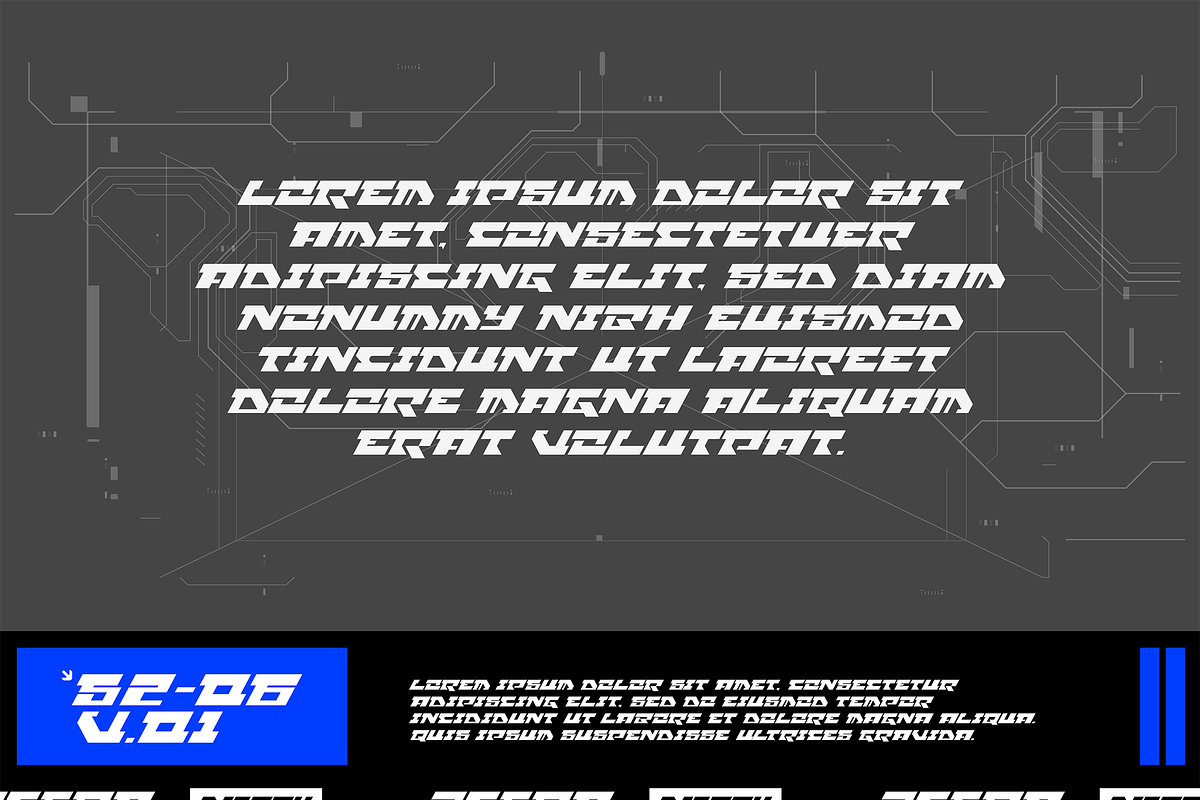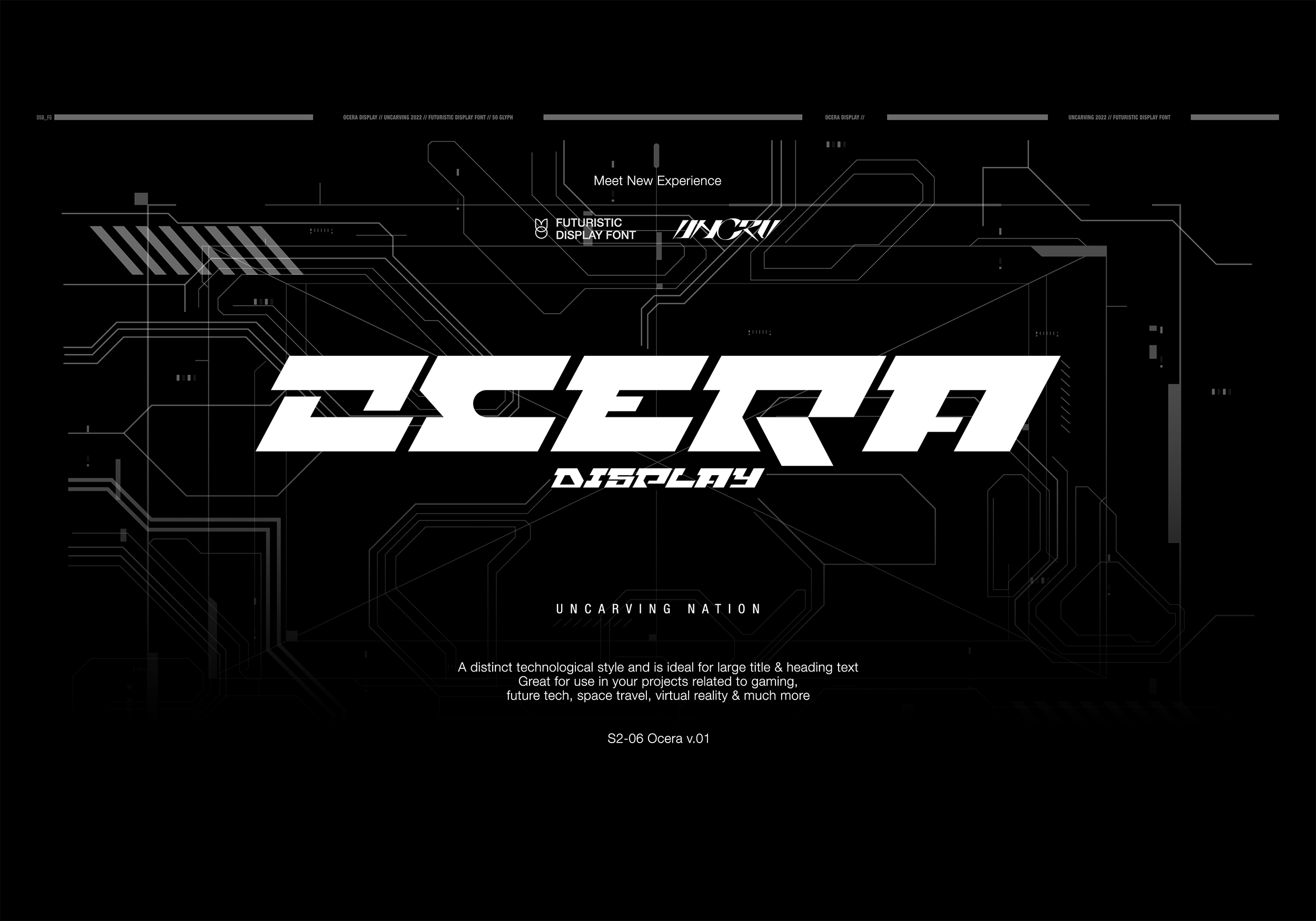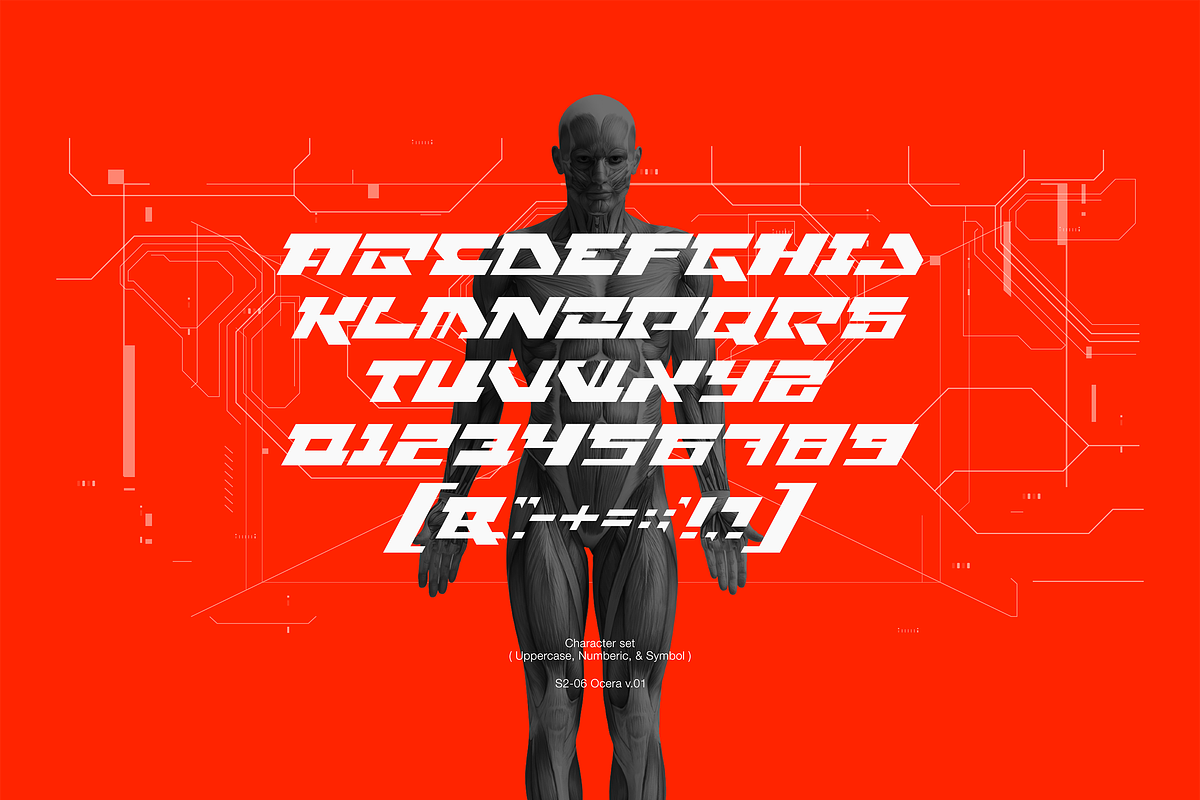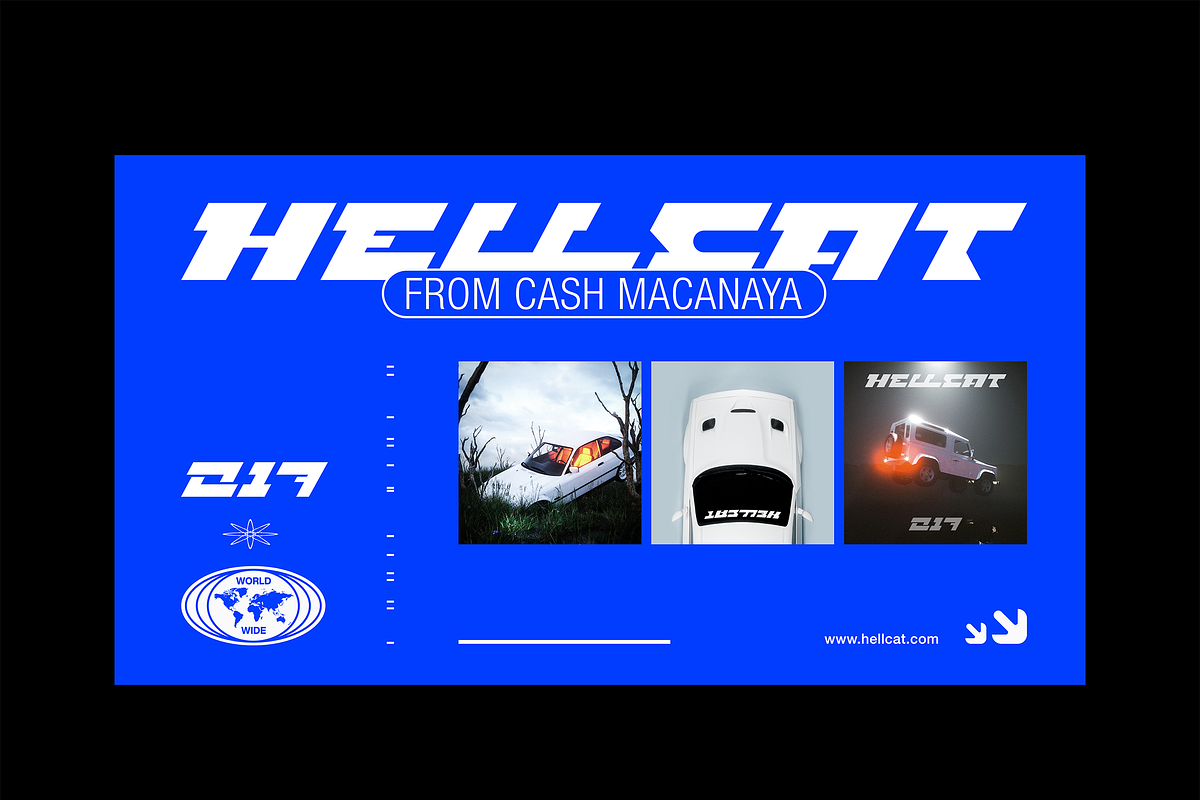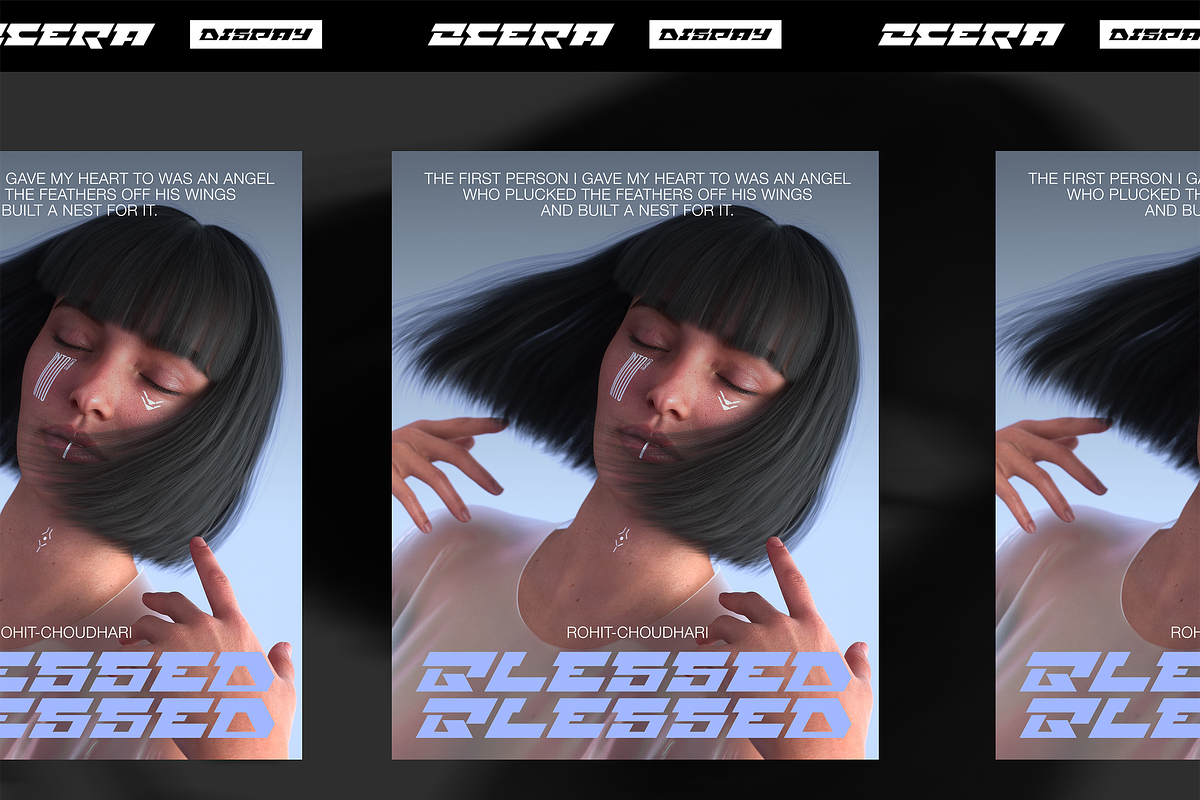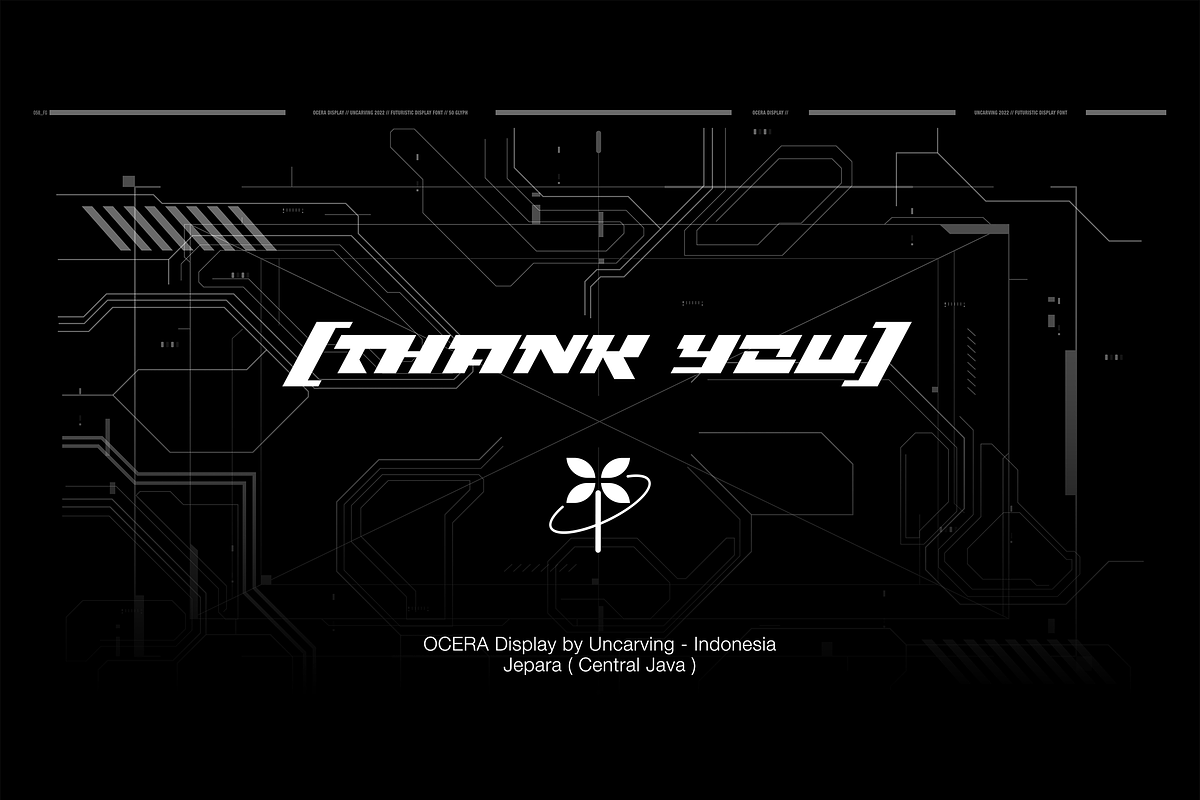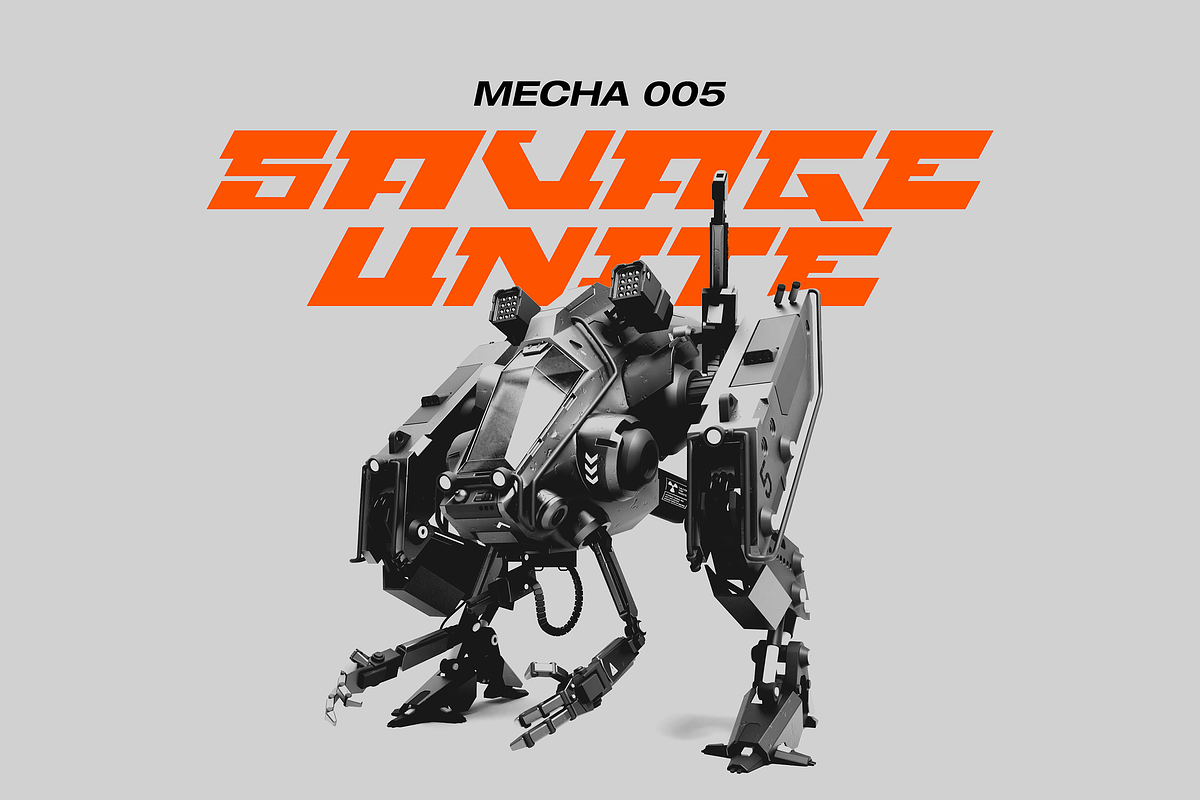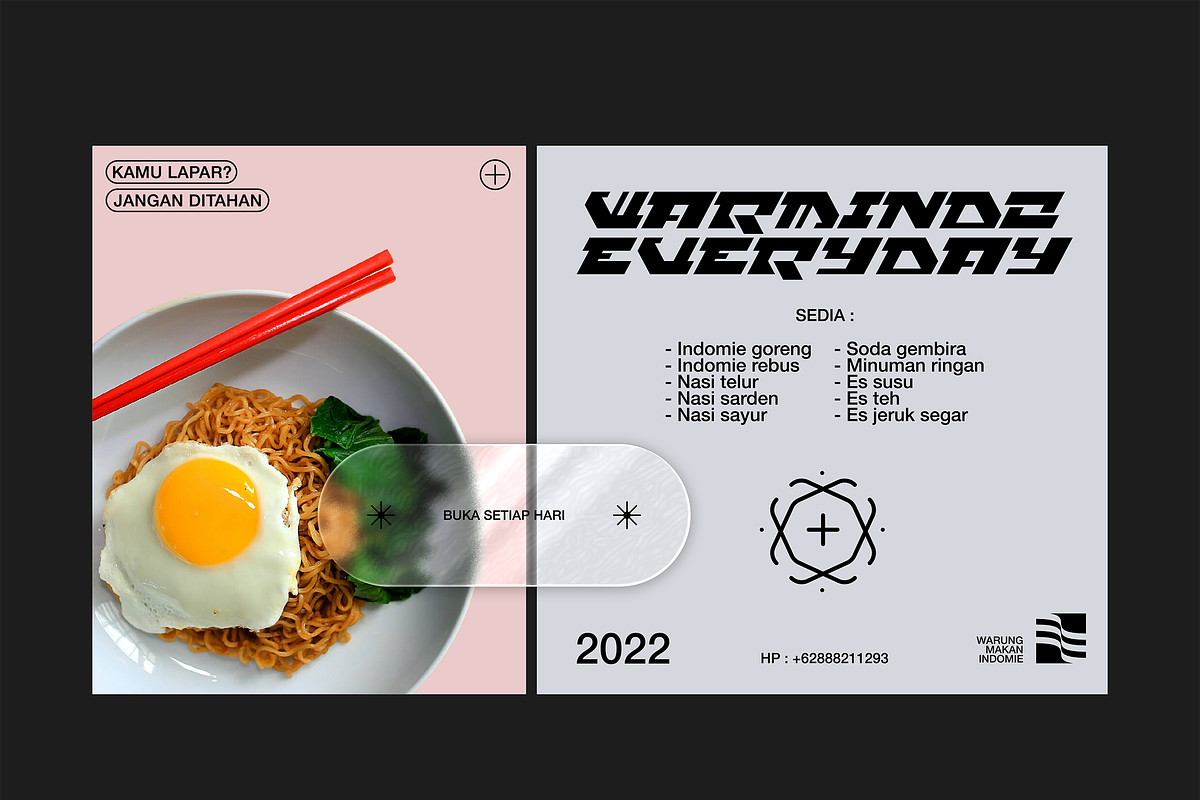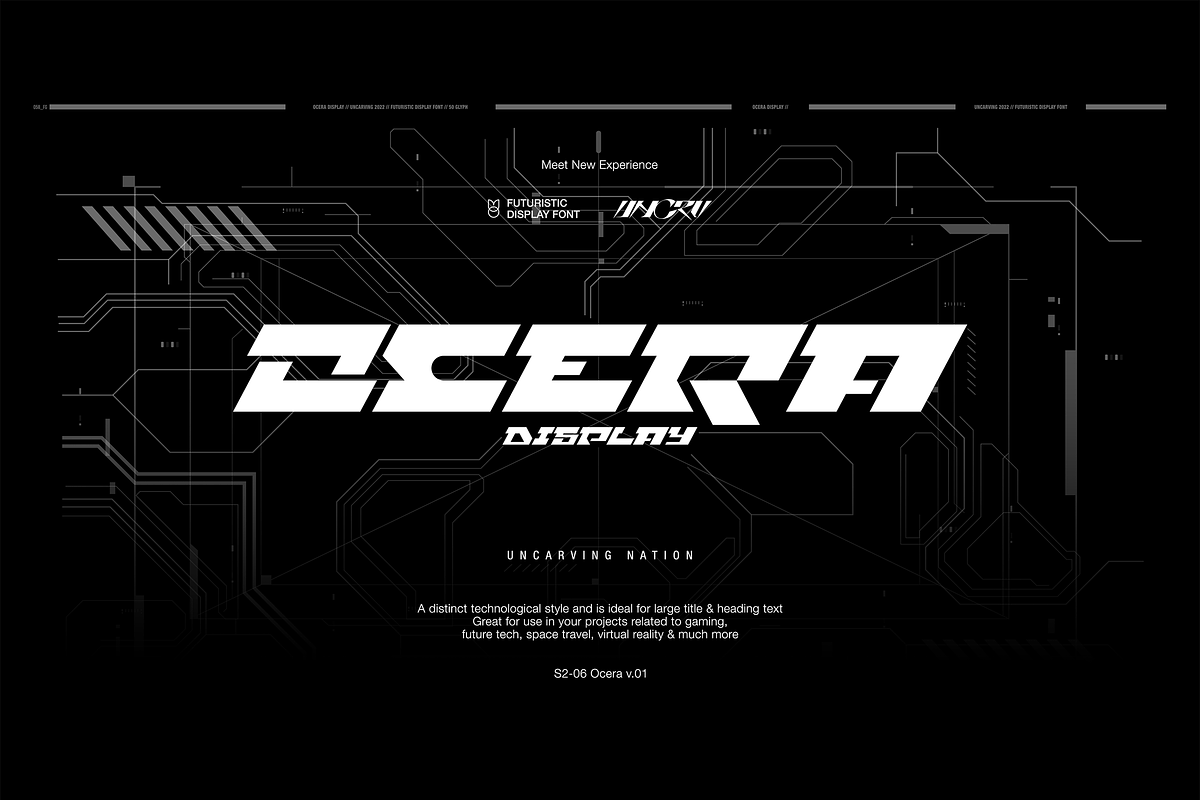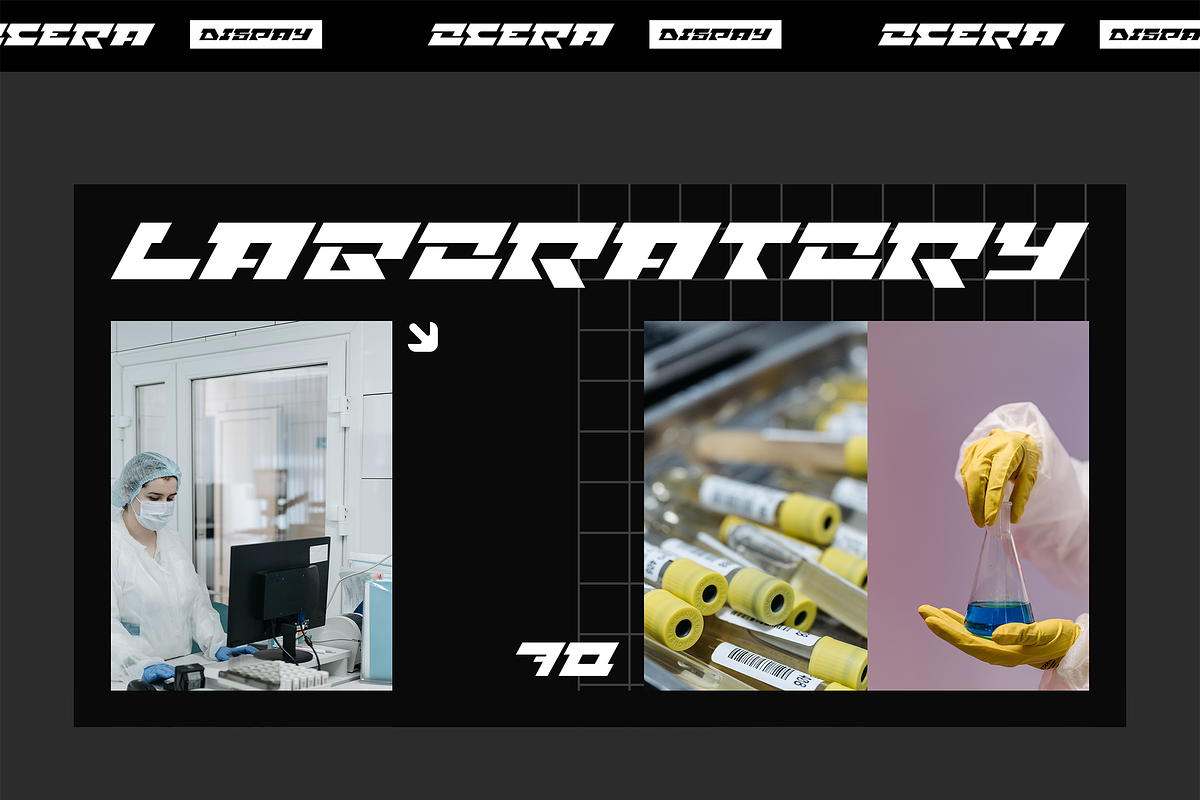
Ocera - Display Font
"OCERRA" is a font designed by uncarving Inspired by the modern bold theme with italic touch keeping the simplicity and unique shapes Great for use in your projects related to gaming, future tech, space travel, virtual reality & much more!